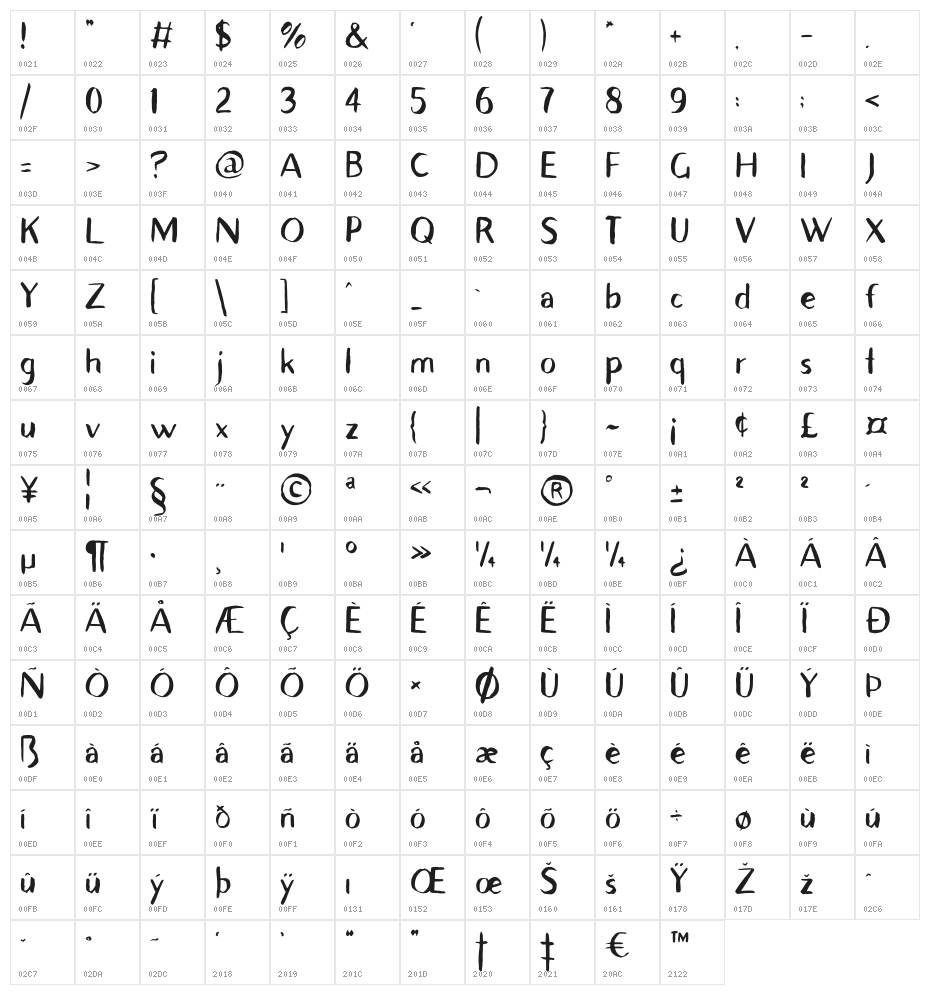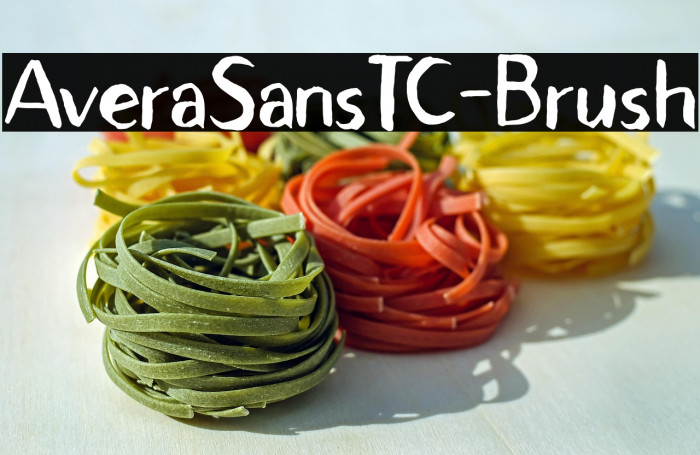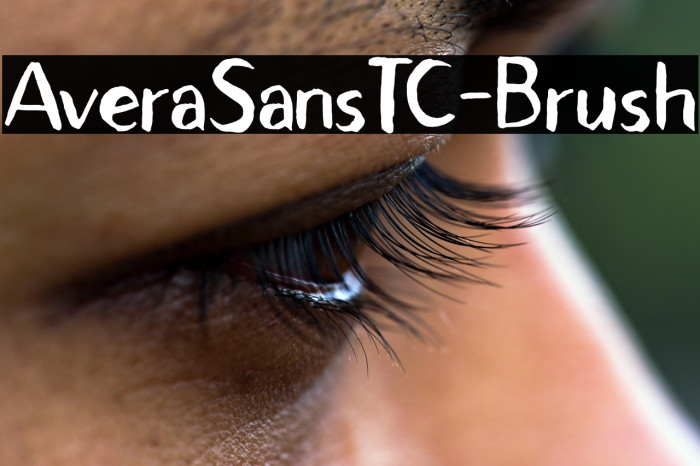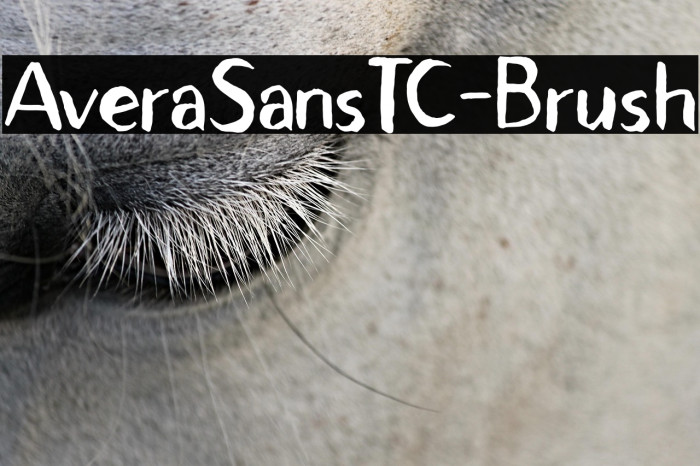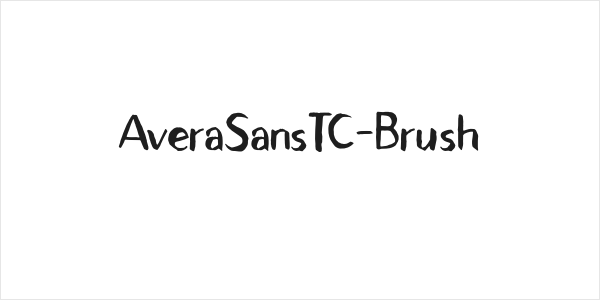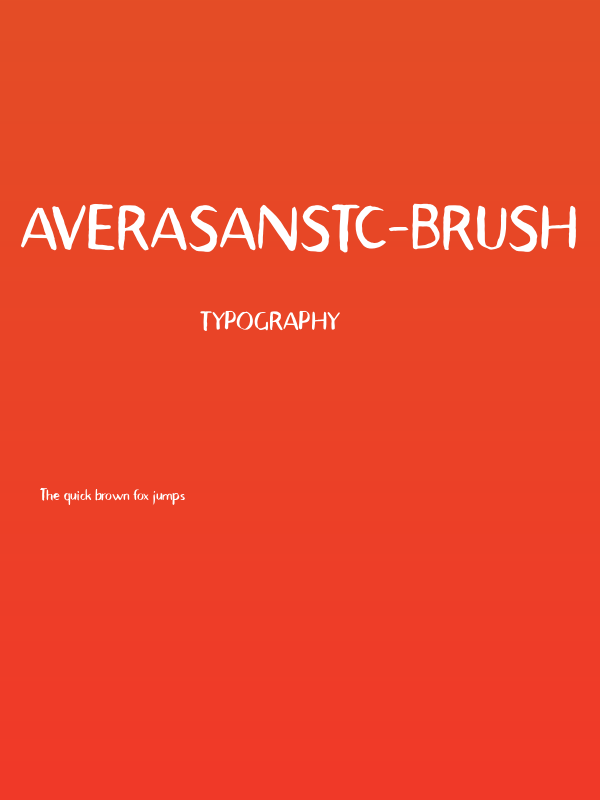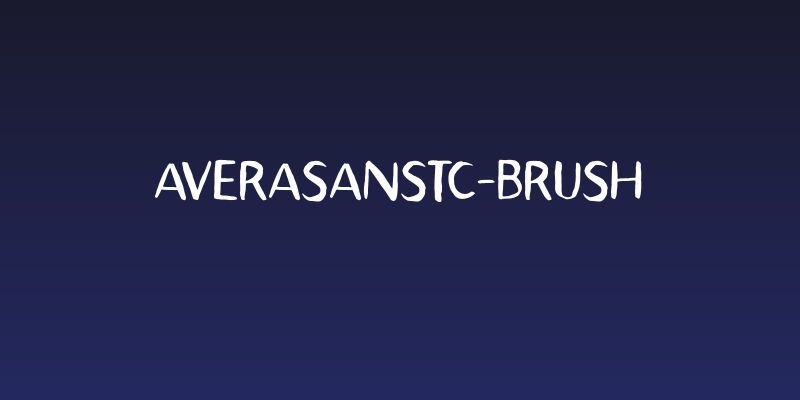
AveraSansTC-Brush Font
AveraSansTC-Brush Description
This font features a bold, brush-like appearance with a hand-drawn aesthetic. The characters are slightly irregular, giving it a natural and artistic feel. The strokes are thick and expressive, with a consistent weight throughout. The uppercase and lowercase letters maintain a cohesive style, while the numbers and special characters complement the overall design. This font is ideal for projects that require a personal touch or a creative flair.